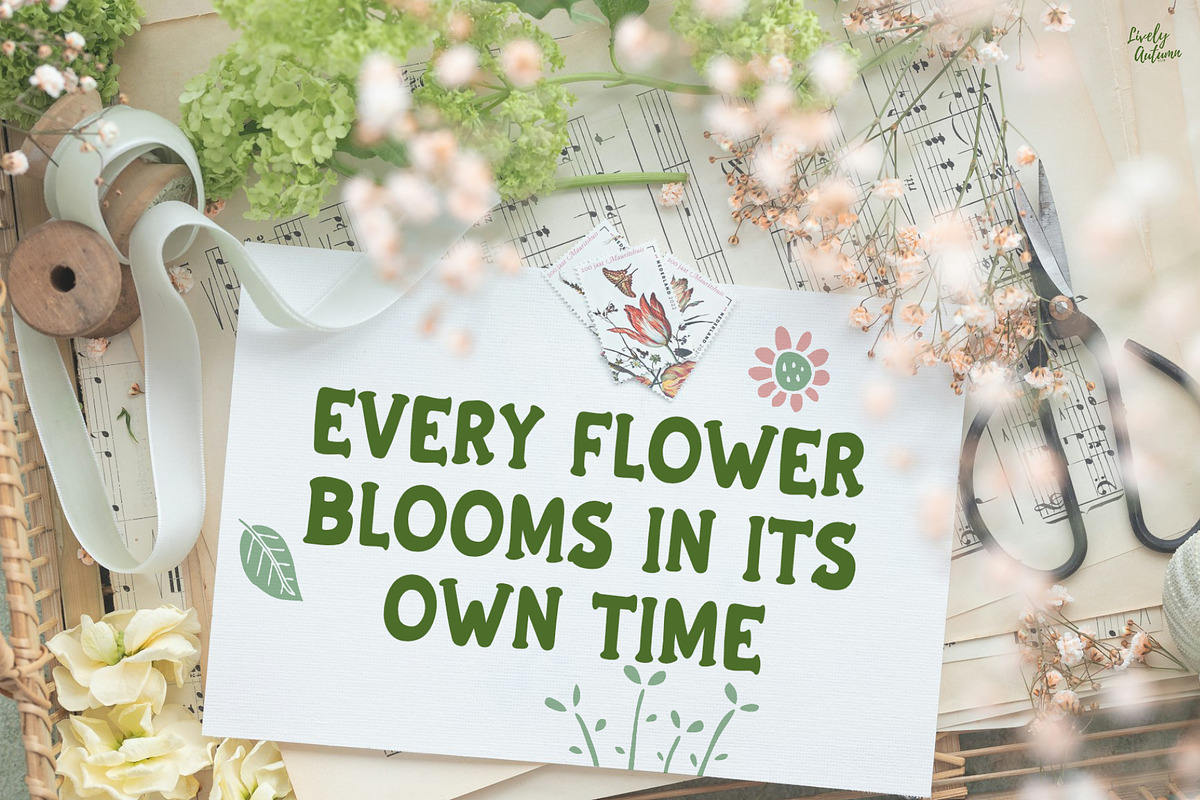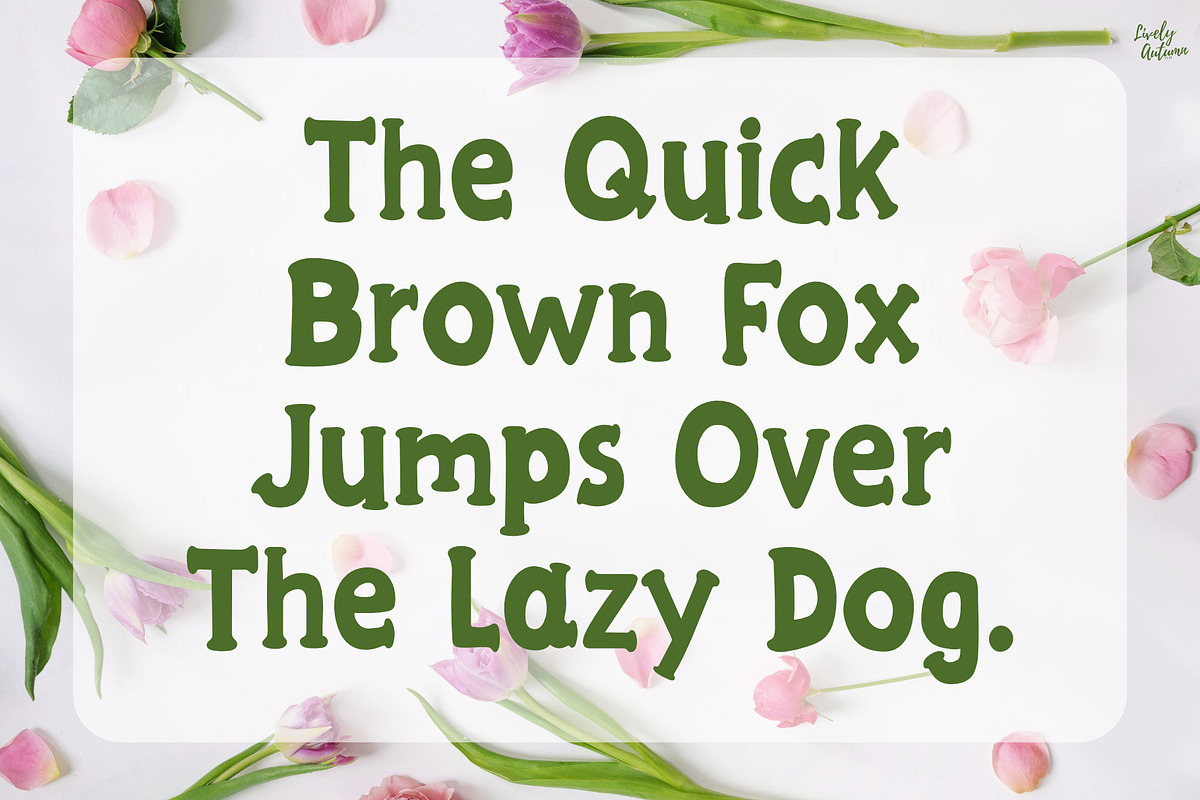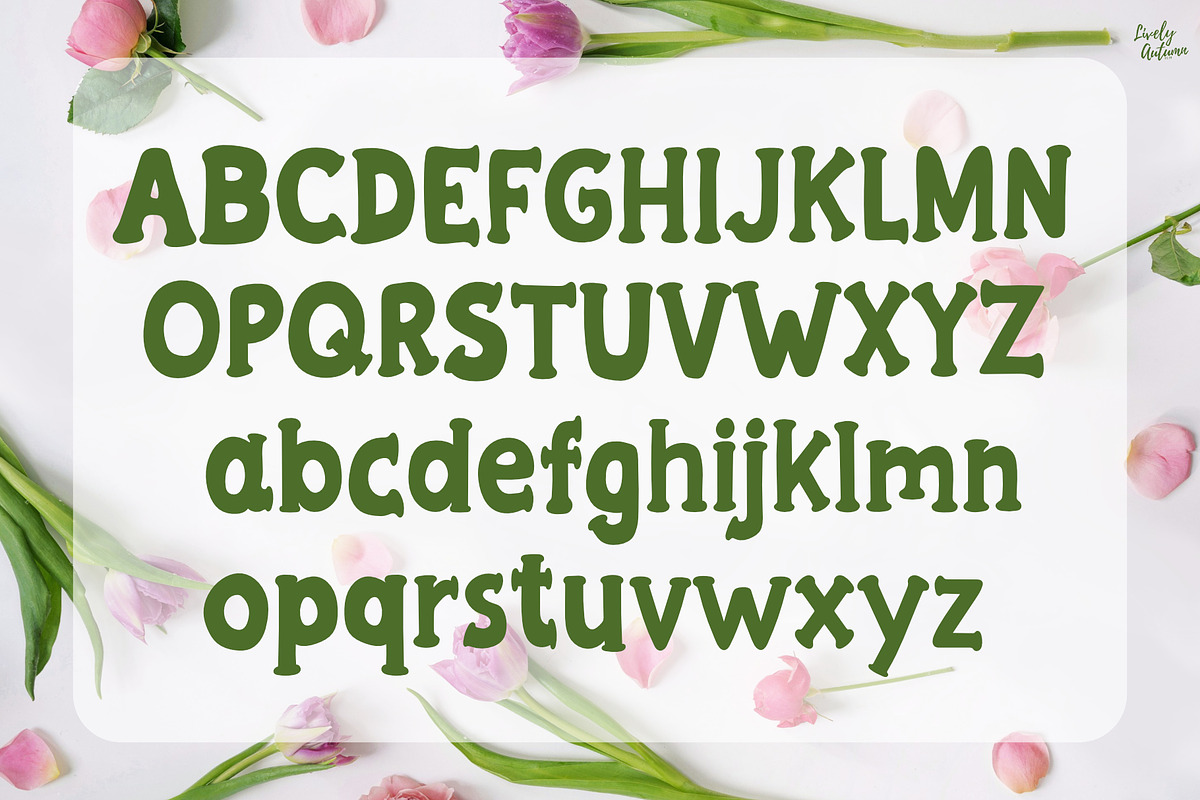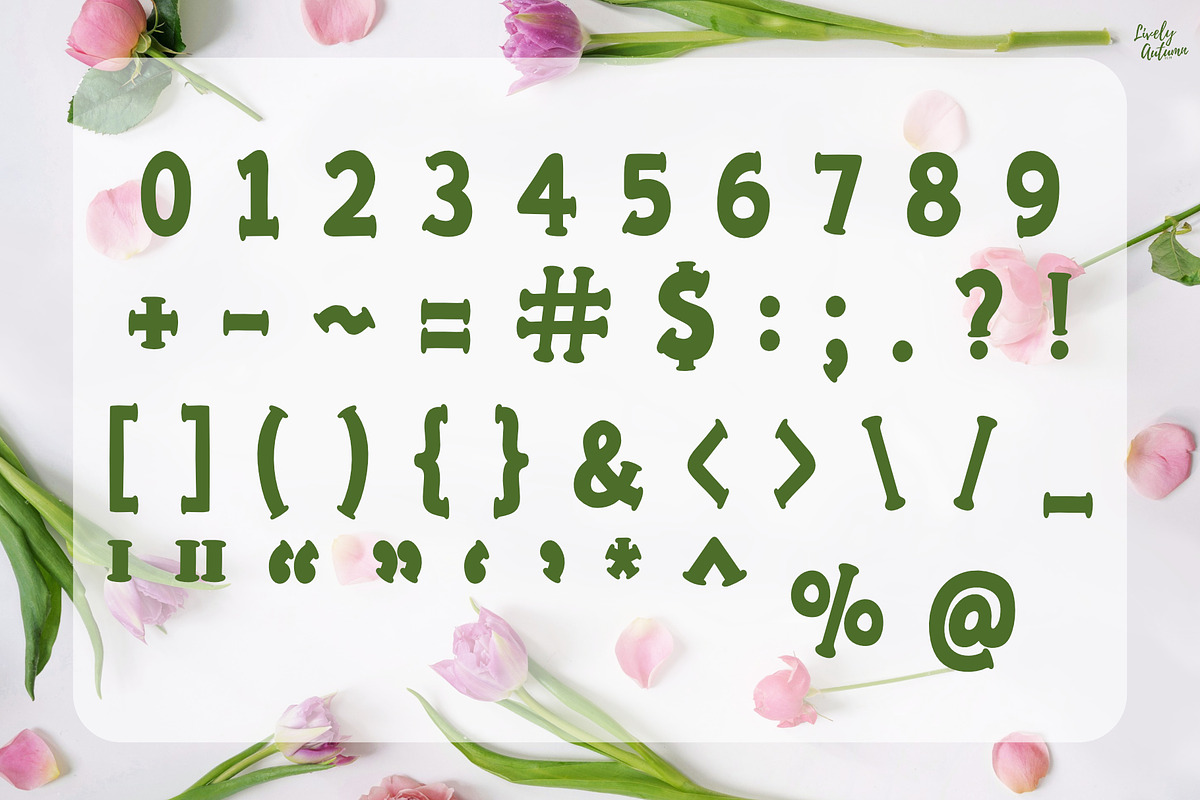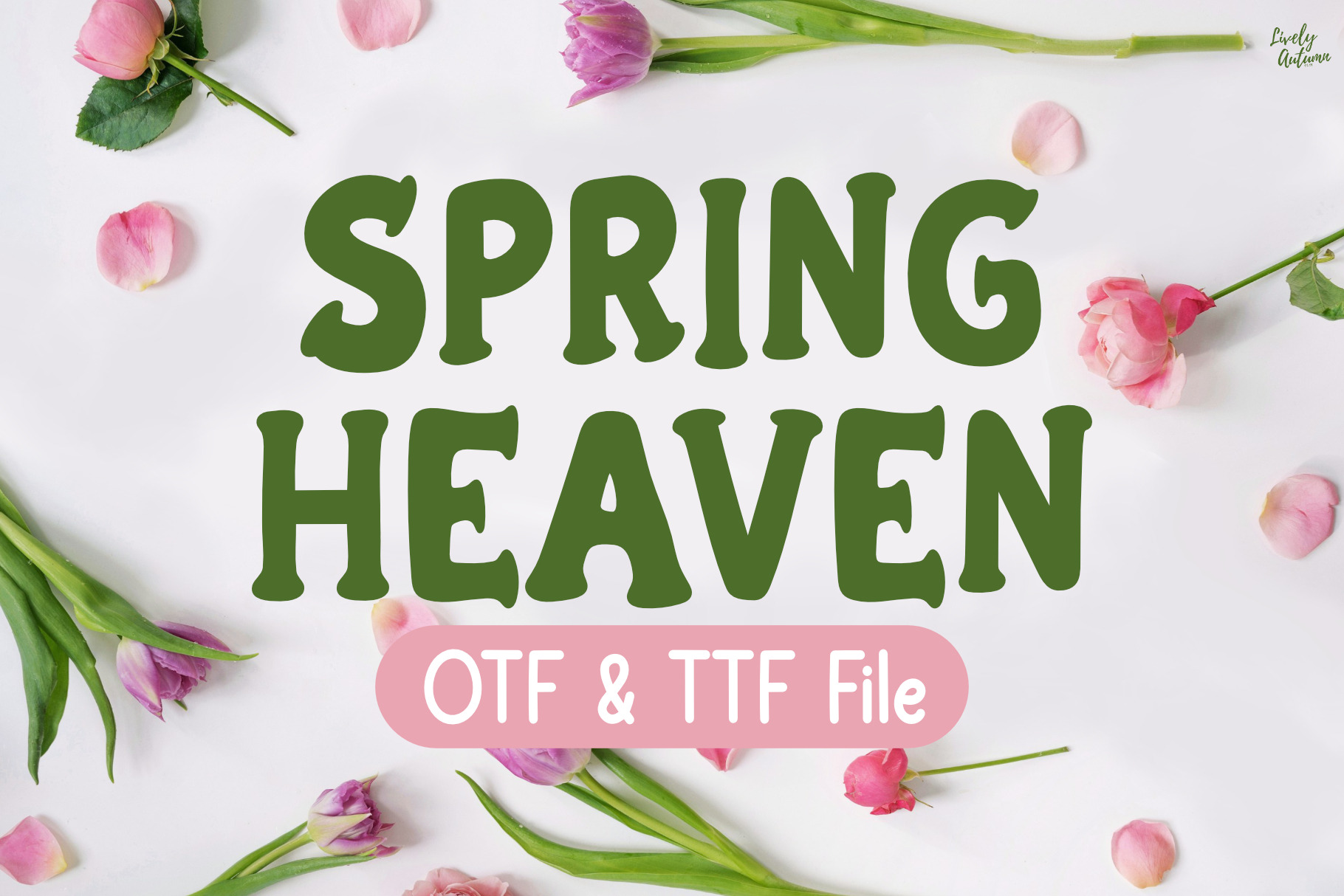
Spring Heaven | Handwritten Font
Spring Heaven Font is a bold serif handwriting font. Perfect for your personal projects and various project. From invitations to posters, social media graphics, journals, greeting cards, and much more.